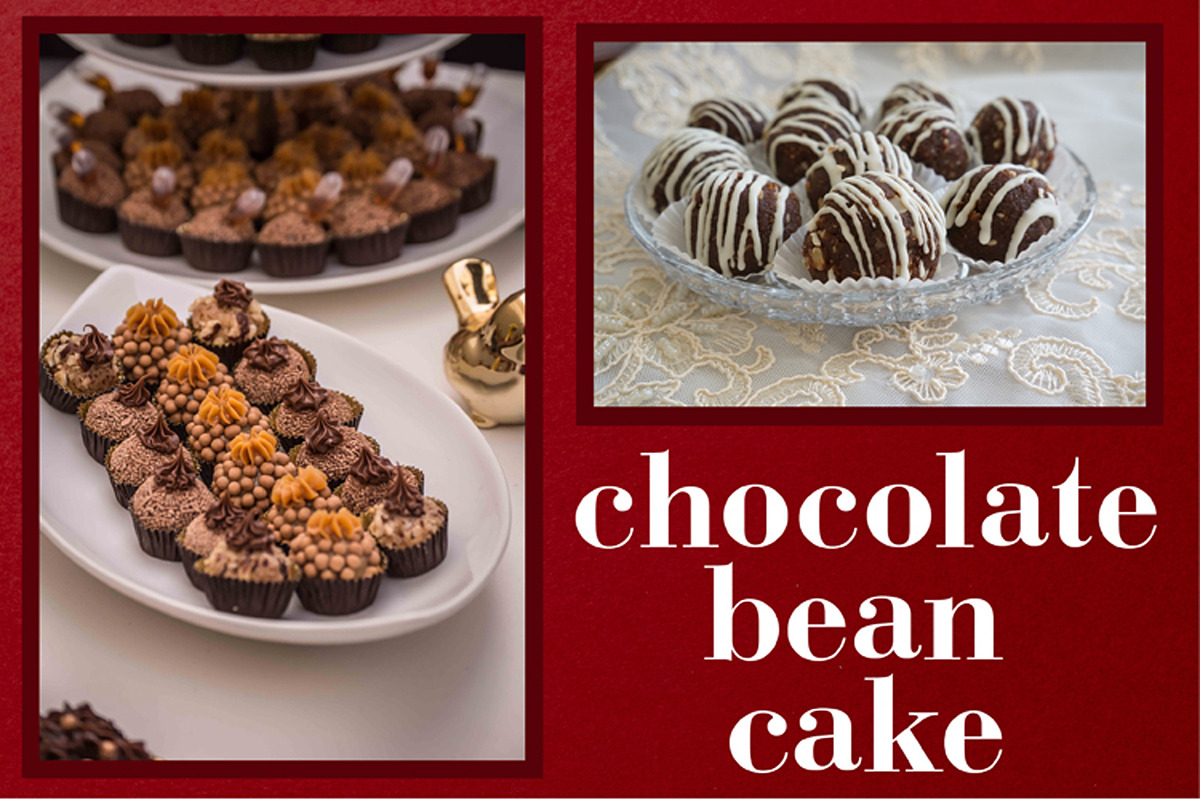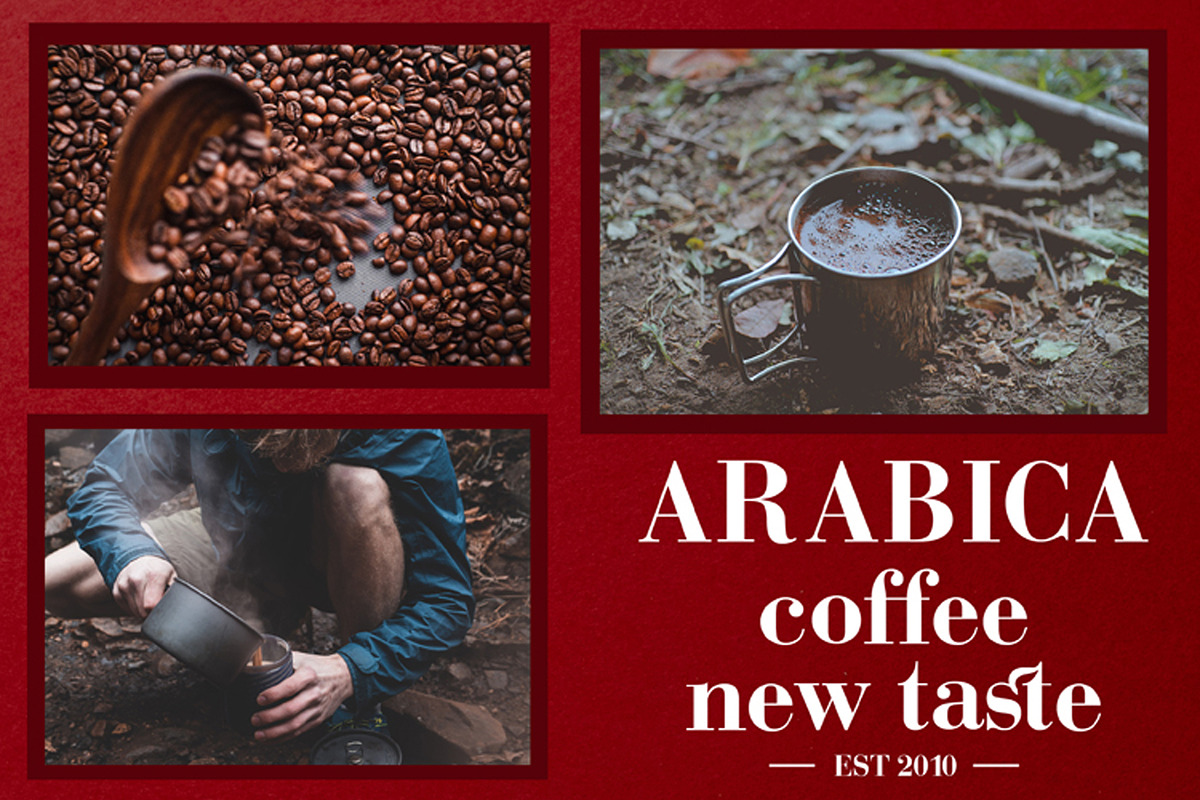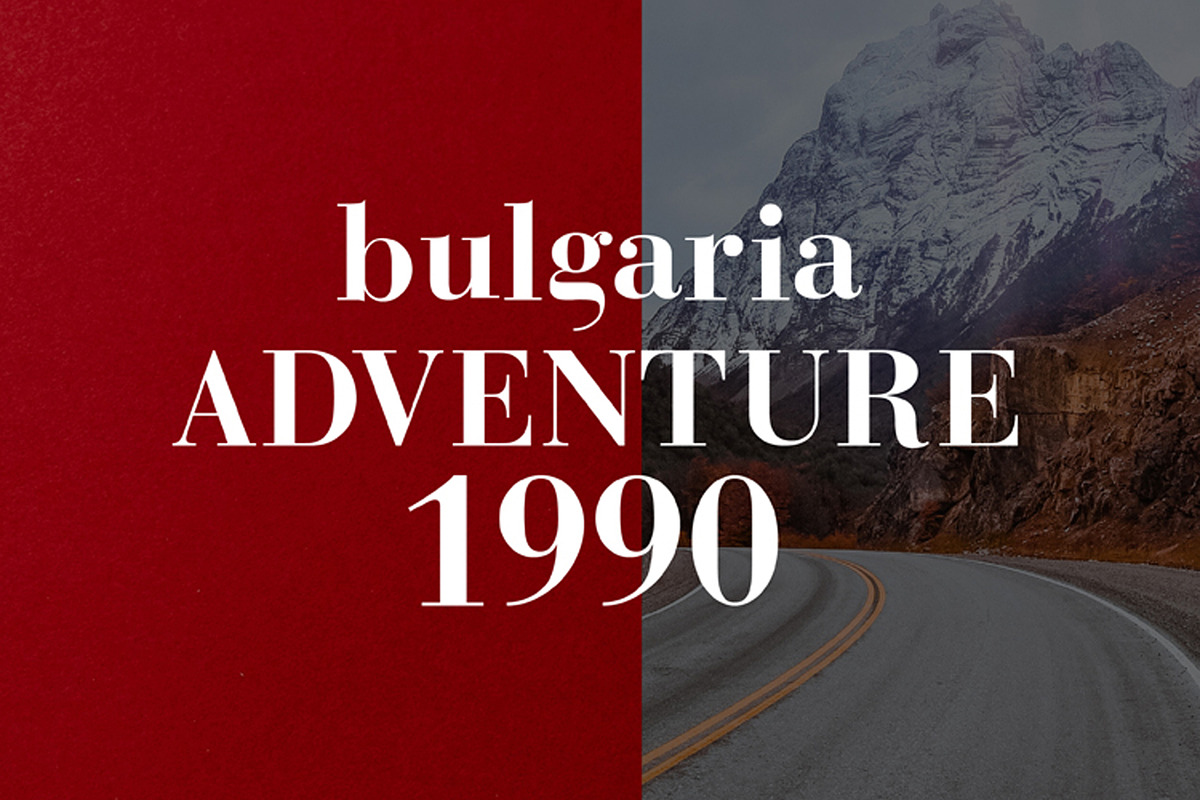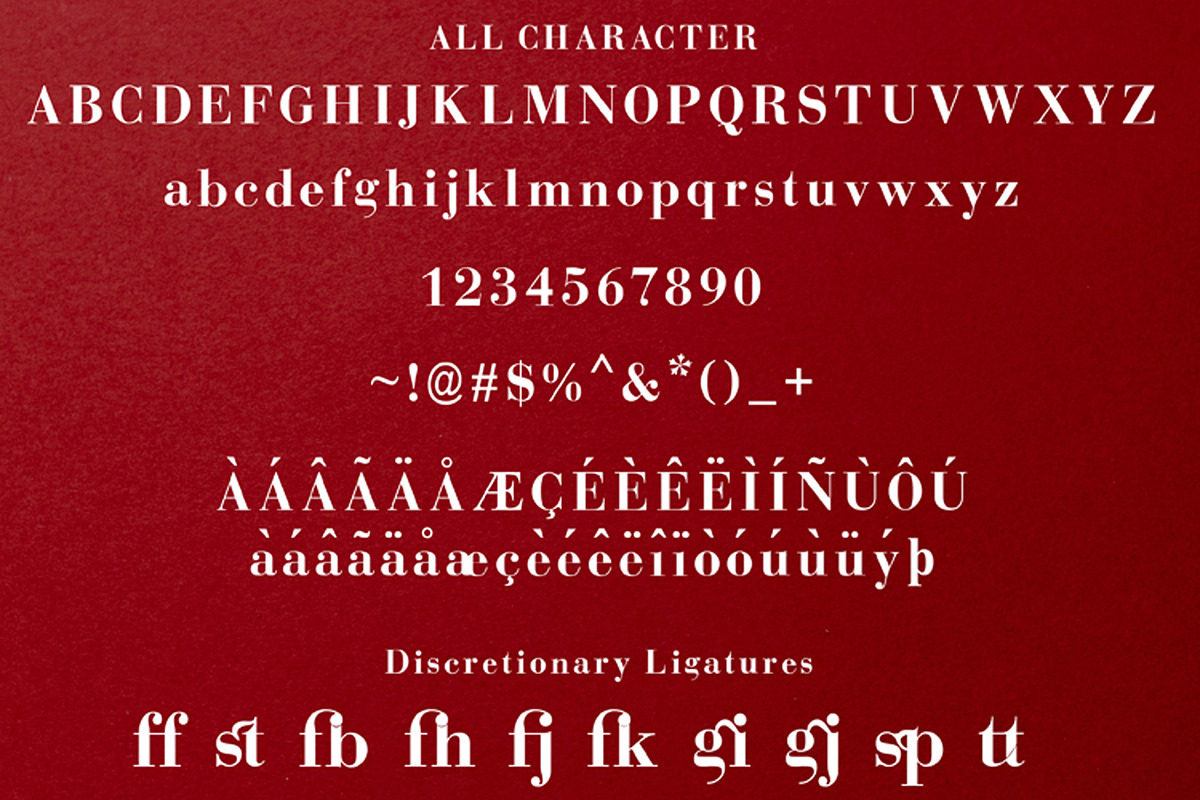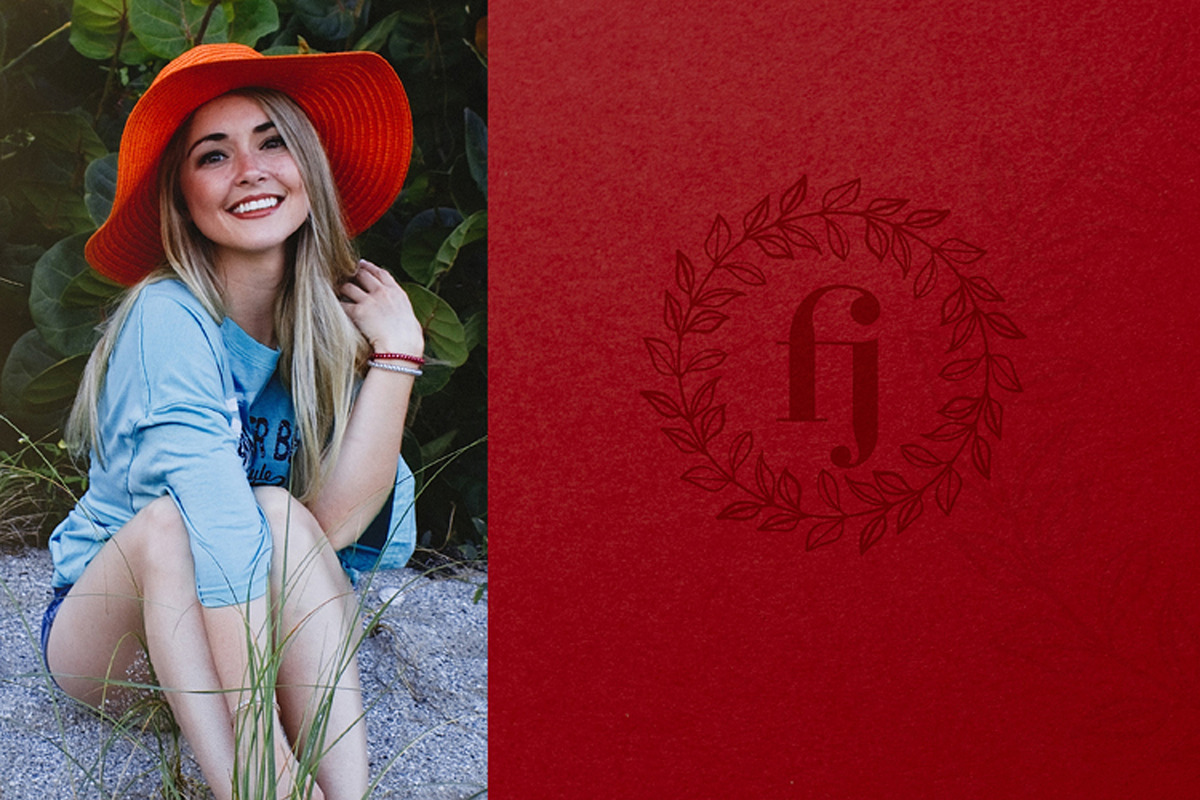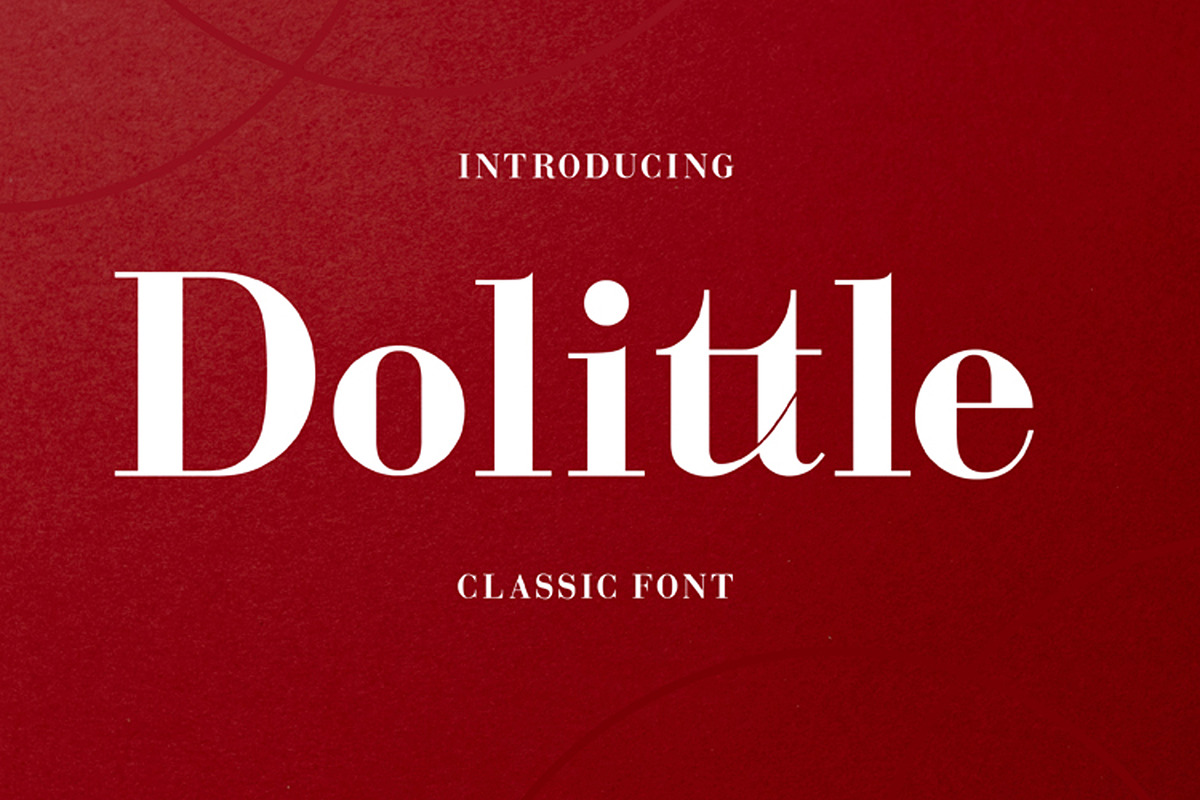
Dolittle
Dolittle is a serif font that combines classic style fonts that are moderated with a minimalist design touch, produces beautiful and elegant fonts, and is supported by ligatures
and more font replacements with some characters brought in,
will make you explore your design style easier, with various alternative styles that allow for logos, posters, covers, main packaging, t-shirts, business cards, wedding cards and more.